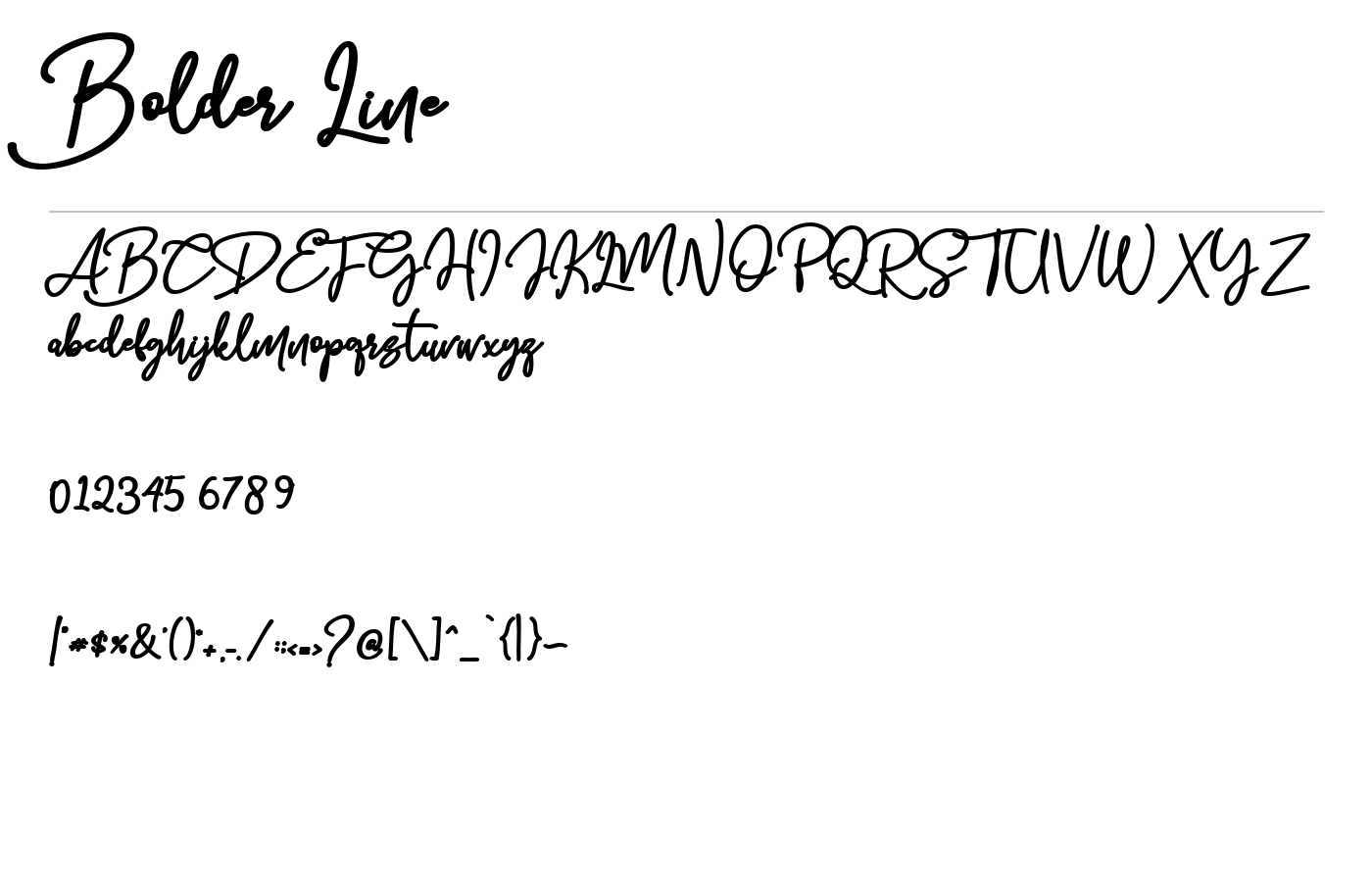
Bolder Line is a lively, handwritten script font with a bold, energetic stroke that offers a modern and friendly feel. Its smooth curves and slightly irregular shapes create a casual yet stylish vibe, making it perfect for creative branding, invitations, and playful headlines where personality and approachability are key. This font works well in designs that aim to capture attention with an informal and expressive touch.
Bolder Line Font
About Bolder Line Font
| Font family | Bolder Line Font |